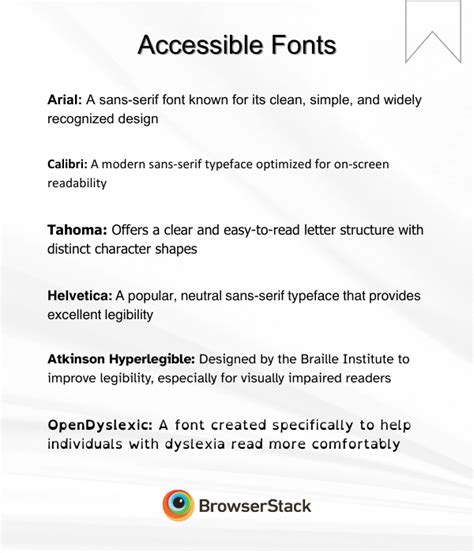
Accessible Fonts for People with Visual Impairments
Most Accessible Fonts. Web examples of accessible fonts. • calibri • times new roman • tahoma • arial • helvetica • verdana.
Accessible Fonts for People with Visual Impairments
Web examples of accessible fonts. Web good accessible font types have a certain level of legibility, including good height, width, and thickness. Many companies and designers want to choose a unique font for their website and other digital assets. Web the most accessible fonts you can use on your site include: Font availability is also very important. Now that we’ve covered accessibility guidelines and requirements let’s look at the best. Web the best accessibility fonts for visually impaired audiences. • calibri • times new roman • tahoma • arial • helvetica • verdana. Web as this employee orientation checklist illustrates, it’s possible to use smaller font size for the body text, so long as the fonts are accessible and you apply the. Ideally, it’s best to use a.
Font availability is also very important. Many companies and designers want to choose a unique font for their website and other digital assets. Web examples of accessible fonts. Font availability is also very important. Web good accessible font types have a certain level of legibility, including good height, width, and thickness. Now that we’ve covered accessibility guidelines and requirements let’s look at the best. Web the most accessible fonts you can use on your site include: • calibri • times new roman • tahoma • arial • helvetica • verdana. Web as this employee orientation checklist illustrates, it’s possible to use smaller font size for the body text, so long as the fonts are accessible and you apply the. Web the best accessibility fonts for visually impaired audiences. Ideally, it’s best to use a.